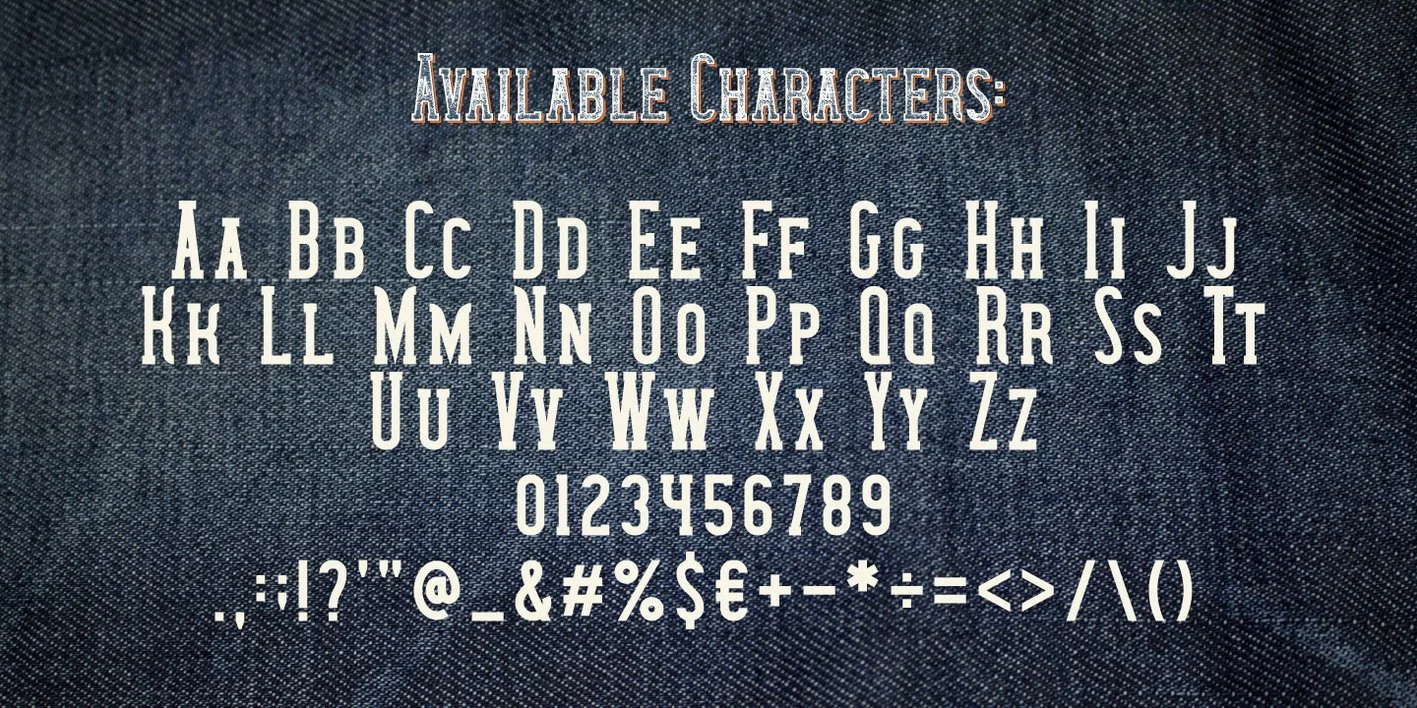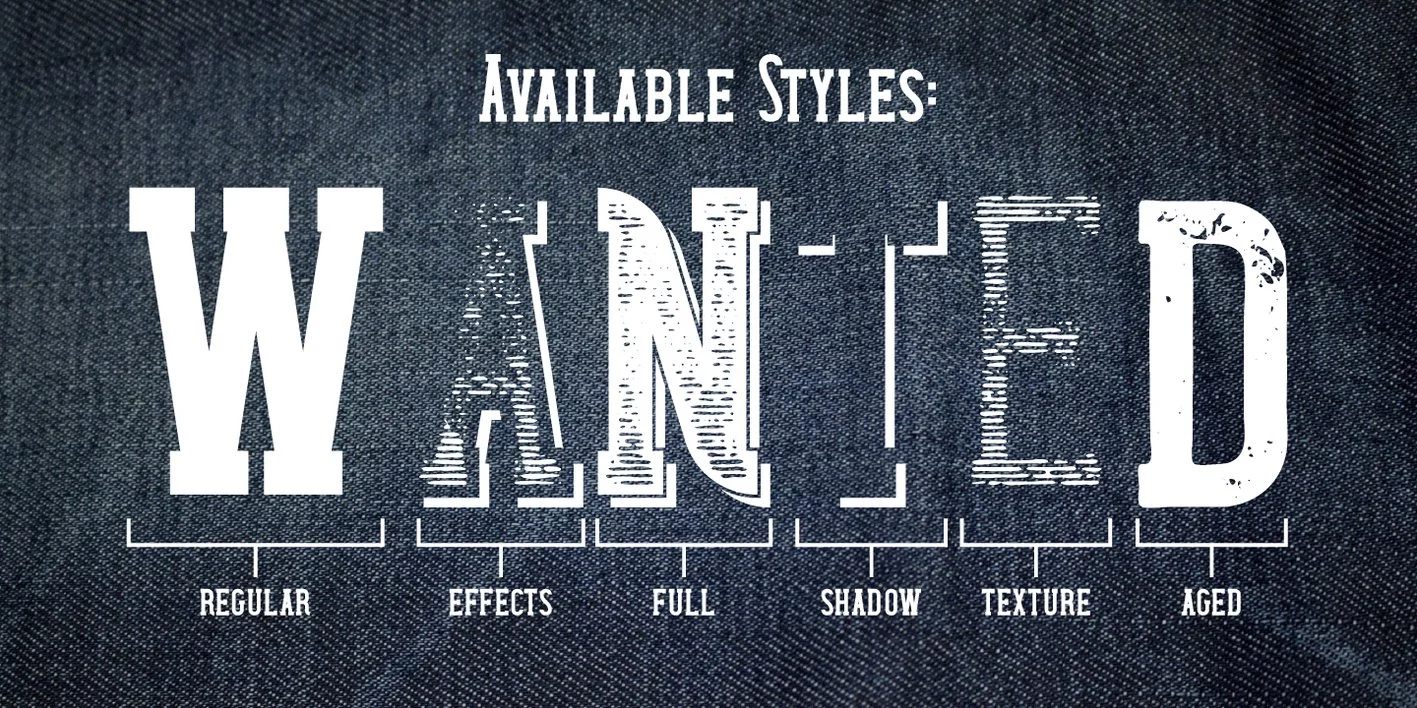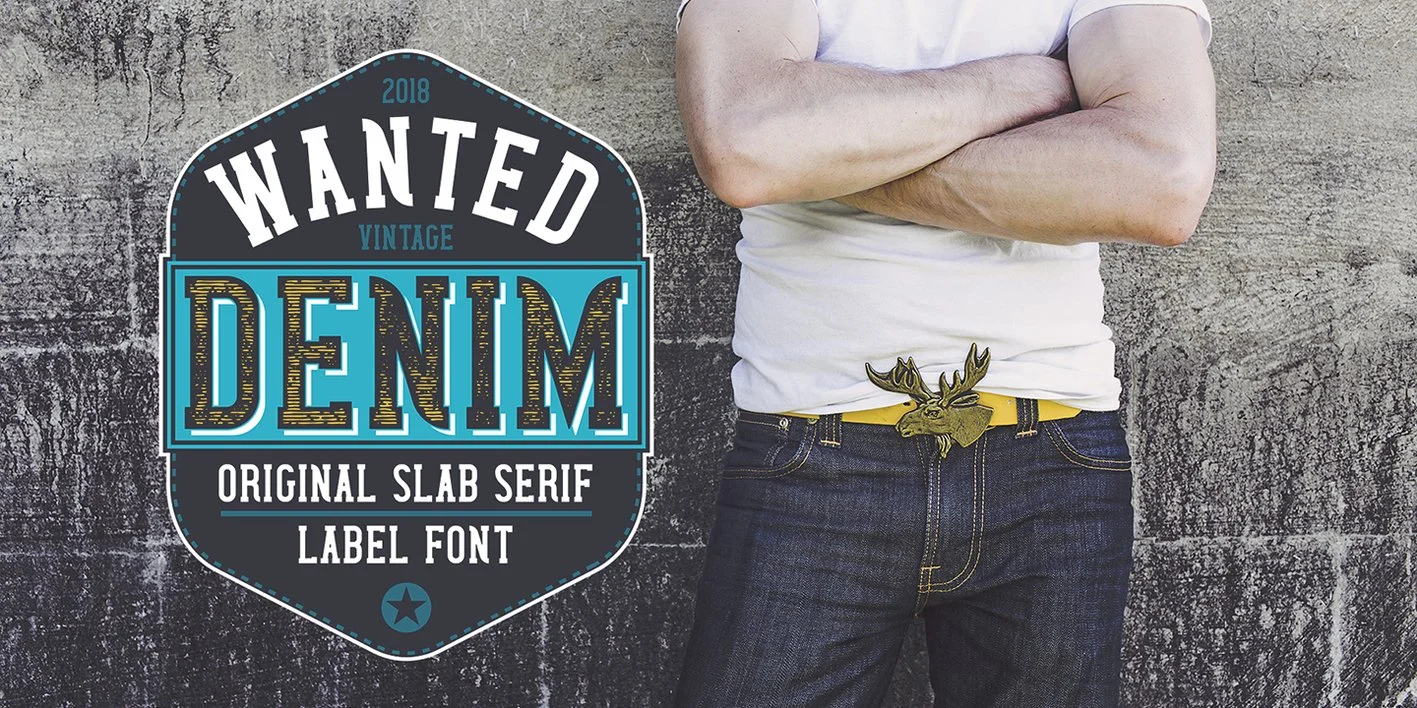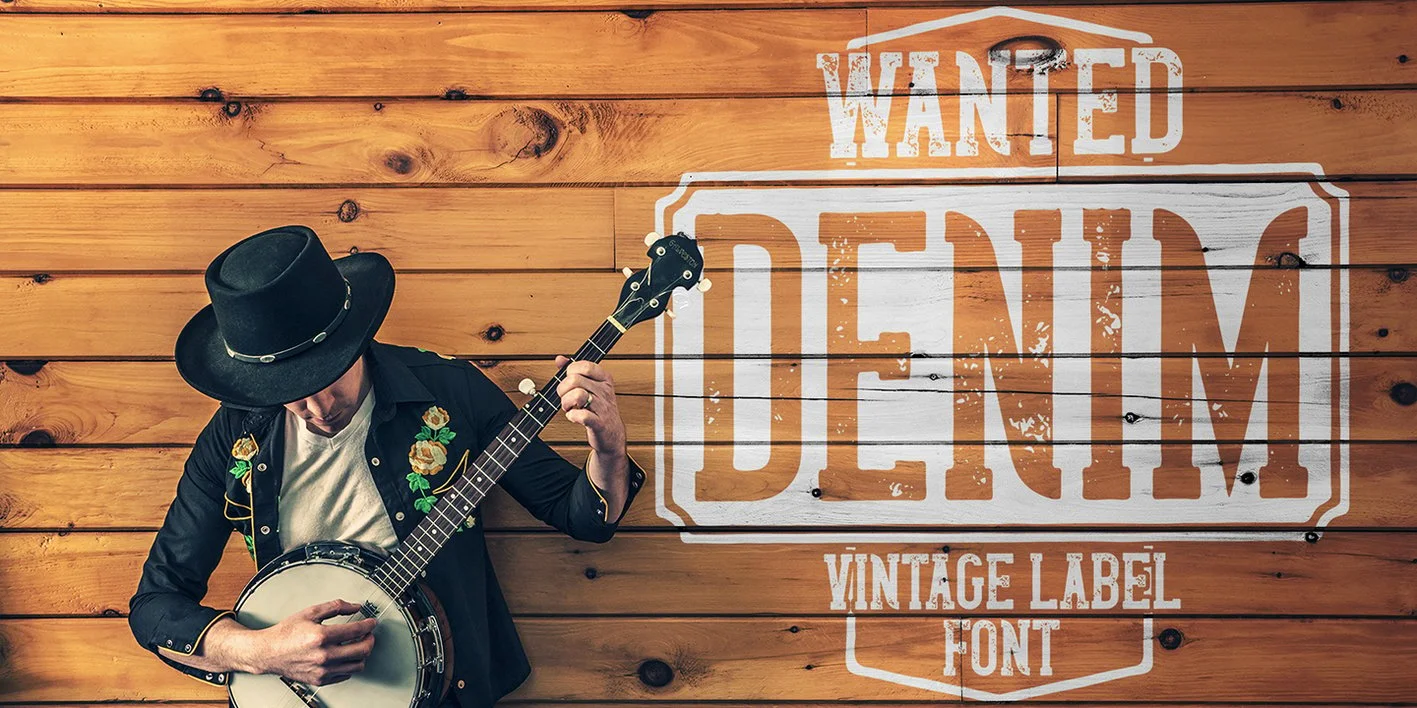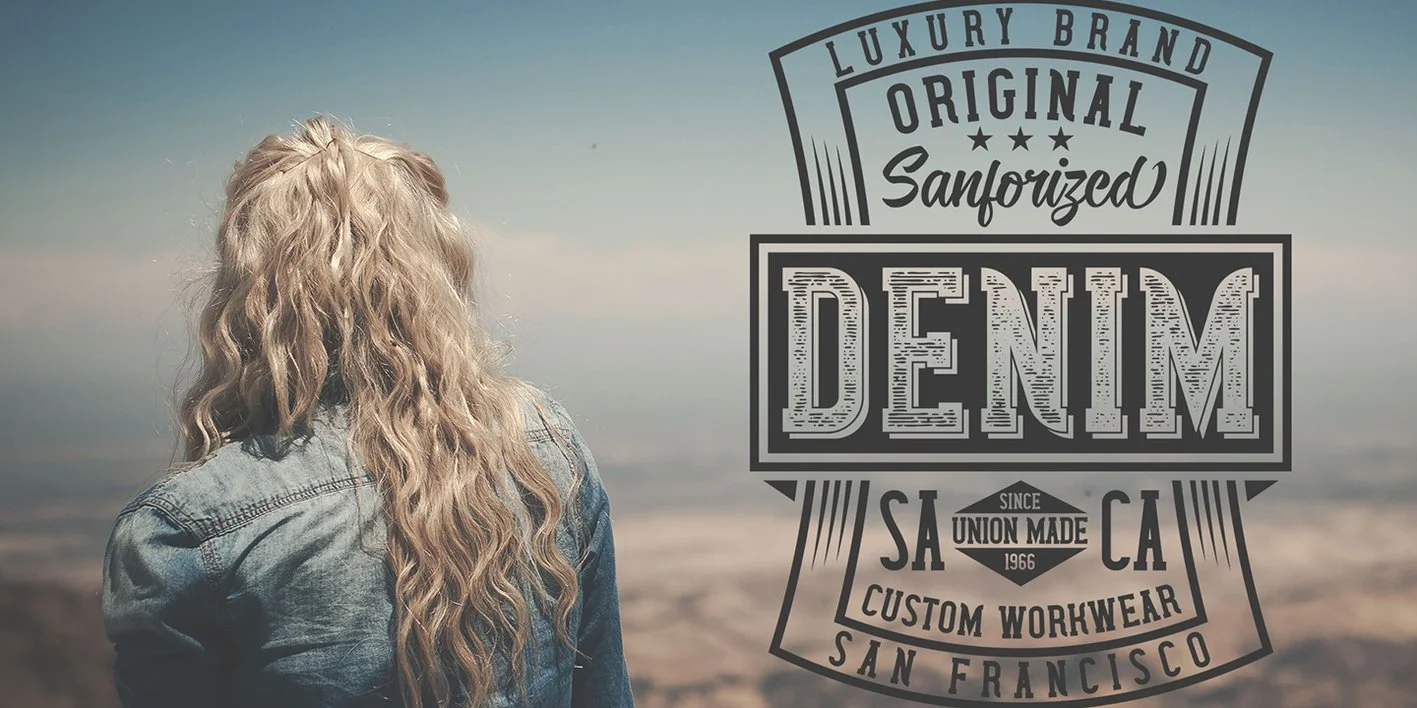
Wanted Denim Font
Few typefaces manage to balance controlled contrast that rewards close inspection with genuine day-to-day practicality. Wanted Denim is one of them. The typeface brings a versatile sensibility to a broad range of creative disciplines, with versatility across print and screen contexts that holds up whether the work is print-first or screen-first.
In practice, Wanted Denim proves particularly effective for environmental graphics, advertising campaigns, annual reports, brand identity systems, web design. Designers reaching for it find that the type decisions feel resolved rather than laboured — a useful quality when client timelines are tight.
The range of applications extends to editorial layouts, social media graphics, product labels, poster creation. That breadth is deliberate: the proportions and spacing were stress-tested across a wide range of mock briefs before the typeface was finalised.
Pairing Wanted Denim with a contrasting serif or a neutral grotesque gives mixed-format layouts a clear visual grammar without requiring constant size adjustments to establish hierarchy.
UX designers establishing typographic systems for digital products find Wanted Denim a reliable choice for projects that demand both personality and restraint. The design avoids the self-conscious quirkiness that dates quickly, settling instead for considered distinctiveness that holds up over time.